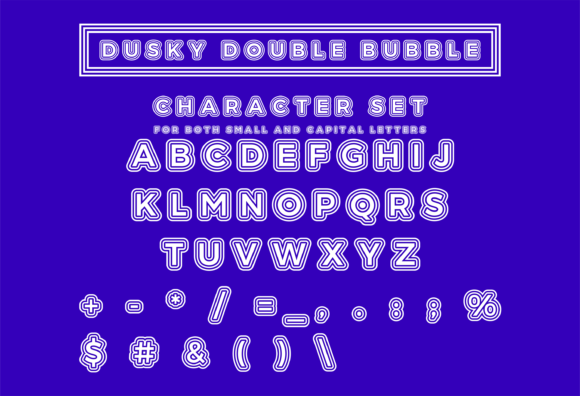
Unleash the Sparkling Charm of Dusky Double Bubble: A Display Font that Invites Joy and Energy
In the realm of captivating display fonts, Dusky Double Bubble Font stands out as a true gem, ready to infuse your designs with exuberance and cheer. This meticulously crafted font, brought to life by the visionary Laks Mi, exudes a playful spirit, inviting you to explore the boundless possibilities of creative expression.
Dusky Double Bubble's enchanting curves and bubbly forms evoke a sense of joy and lightheartedness, making it the perfect choice for projects that demand a touch of whimsy and charm. Whether you're crafting eye-catching logos, designing cheerful posters, or creating vibrant social media graphics, this display font is sure to leave a lasting impression.
As a display font, Dusky Double Bubble excels in commanding attention and conveying messages with flair. Its bold, expressive characters are designed to captivate audiences, making them ideal for headlines, titles, and other elements that demand immediate impact. Whether you're creating marketing materials, website designs, or eye-catching social media posts, this font will elevate your words, making them impossible to ignore.
With Dusky Double Bubble Font, you'll embark on a creative journey filled with endless possibilities. Its playful nature inspires imagination and encourages you to think outside the box. Embrace the exuberance of this display font and allow your designs to radiate joy, energy, and effervescent charm.